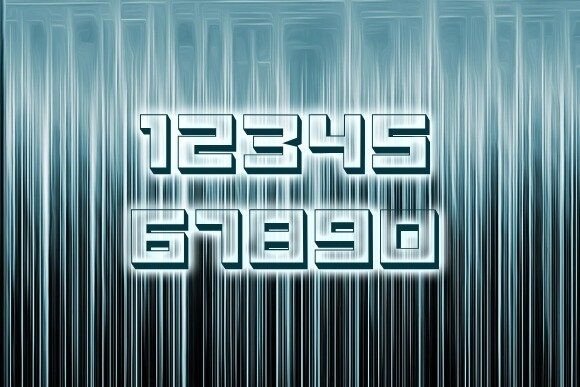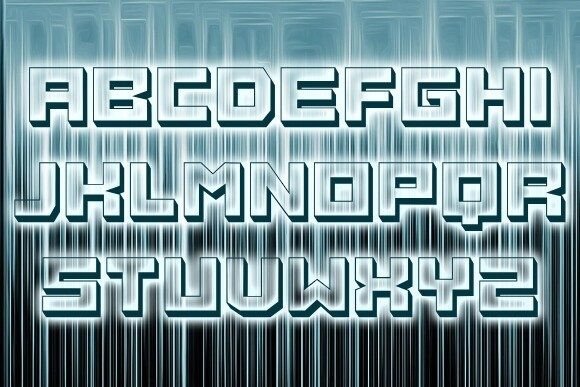
Introduction to Plexiglass Font
Remember the moment when you stumble upon a font that instantly sparks an idea for your next creative project? For designers, this moment is pure magic. It’s the moment when everything falls into place, and your vision begins to take shape. I’m here to share with you one such moment, and it’s all about the Plexiglass Font.
This amazing 3D typeface is a game-changer for any design project. With its sleek and modern design, it’s perfect for adding a touch of sophistication to your prints, brochures, or even t-shirts. What sets it apart is its unique transparent background, allowing it to seamlessly blend with any design element. Whether you’re a seasoned designer or just starting out, the Plexiglass Font is a valuable addition to your design resource arsenal.
Plexiglass Font
- High-quality, vector-based font with a unique, transparent background design, perfect for creative projects.
- Perfect for designers and artists looking for a distinctive, eye-catching font to elevate their creative project.
Honest Review: Plexiglass Font
I recently came across the Plexiglass Font, a free download that I was excited to incorporate into my next creative project. As a designer, I’m always on the lookout for high-quality design resources that can elevate my work.
One thing that really stood out to me about the Plexiglass Font is its transparent background, which allows for seamless integration with any design element. This feature is a game-changer for anyone working on a project with complex layers.
- High-quality design with crisp, clean lines
- Easy to use and customize
- Perfect for creative projects that require a touch of elegance
- Only available in a limited number of font styles
- Not suitable for projects that require a bold, attention-grabbing font
Overall, I’m impressed with the Plexiglass Font and would definitely recommend it to fellow designers. Its high-quality design and transparent background make it a valuable addition to any design resource collection. ⭐️⭐️⭐️⭐️ (4/5 stars)
Plexiglass Font
Tips for Getting the Most Out of Plexiglass Font
For optimal results, use the Plexiglass Font in conjunction with other design elements, such as images and graphics, to create a visually appealing design.
Common Use Cases for Plexiglass Font
The Plexiglass Font is ideal for a variety of creative projects, including:
- Digital design